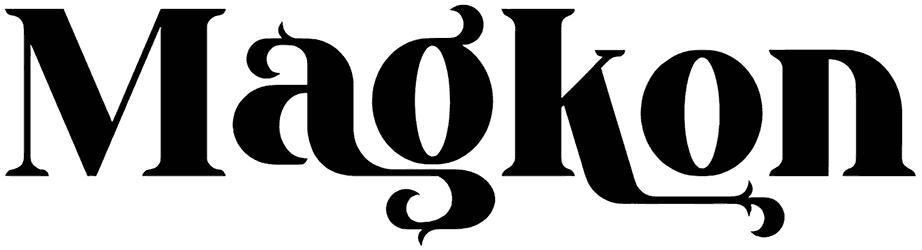
Magkon Font
Are you looking for a classic design that will make your writing and designs expand and shine? Download Magkon. This elegant font takes a fresh look at the design standards of an edged font and has successfully combined the hard lines of these fonts with decorative twists and created a super exciting style.
For this reason, it is a suitable choice for designers who want to design a new design on book cover or design their new poster uniquely.